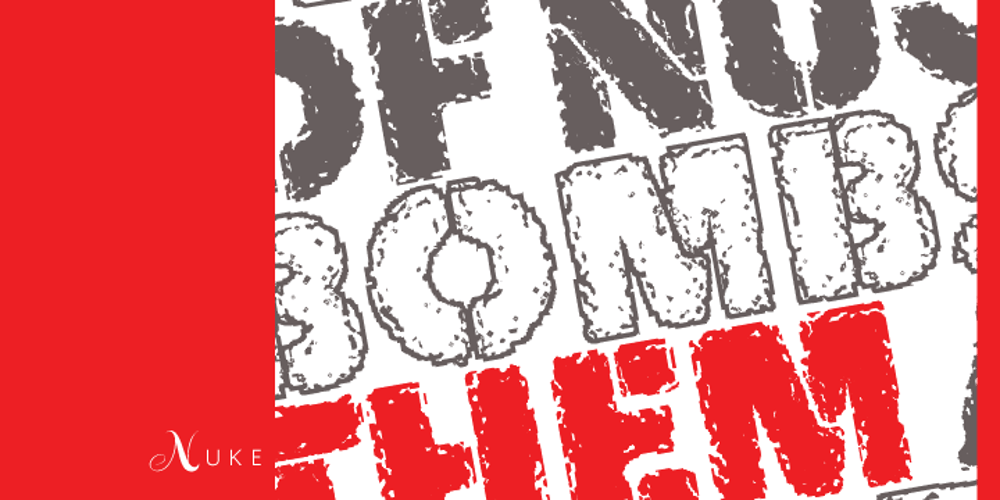
Nuke
Nuke font
Nuke Font Family was designed by Patrick Griffin and published by Canada Type. Nuke contains 4 styles and family package options. To grunge or not to grunge. Is grunge back? Maybe. Maybe it never left. Maybe it was just hiding around the corner waiting for the right time when it is needed again. We have a theory that if grunge makes a comeback, it will be vastly different than its last incarnation. The mid- to late-1990s grunge had few statements, if any, to make about society, culture and the world in general. As visually appealing as some of it was, for the most part it was form for form’s sake, a misguided and mostly failed way of interpreting the old “medium is the message” mantra. We believe that if a new wave of grunge is to surface now, it will have to make a much more poignant and artistic statement than it did in the 1990s, when grunge was really just a quick and dirty random collaging or filter distortions done in the name of experimentation. We think the only room left for grunge design is one where it is directly and purposely willful, not just ambiguously Kobain-esque or “trendy”. A pessimistic new wave of “reality destructuring” design would be right at home in these early years of the 21st century, with threats of war and terror raging all over the world, natural disasters, class-based prejudices, government scandals, the public collapse of confidence in PR machines, entertainment and politics, and transparencies in human behavior becoming more obvious. No more will “experimentation” be a sufficient explanation for a grunge design. If grunge makes a come back, it will have to be imaginative, relevant, original, and much harder work than random collaging or a conveyor belt-based software filtering process. The two Nuke fonts were born from such reflections and hypotheses of cynicism. Military and war ideas are quite evident from Nuke’s underlying stencil construct. Additionally, the main Nuke style is a very original Frankenstein, with former stencil pieces rusted out and combined together to form the recognizable letter shapes. It can be made of steel or rock, you choose. It can be the post-apocalyptic remains of the world, or whatever sheet metal is left of a tank or bomb shelter, your call. Similarly, Nuke Bold can be water- and tread-eroded letters on the asphalt, or the final moment of letters on the verge of being pulverized and turning into nothing. Welcome to the new imaginative grunge, where the letters can be whatever your design needs them to be. If on the other hand you want a very, very clean version of this font, check out the Quanta set, also by Canada Type. Quanta and Nuke complement each other very nicely in display work.